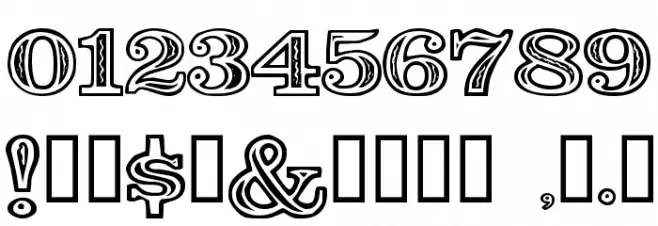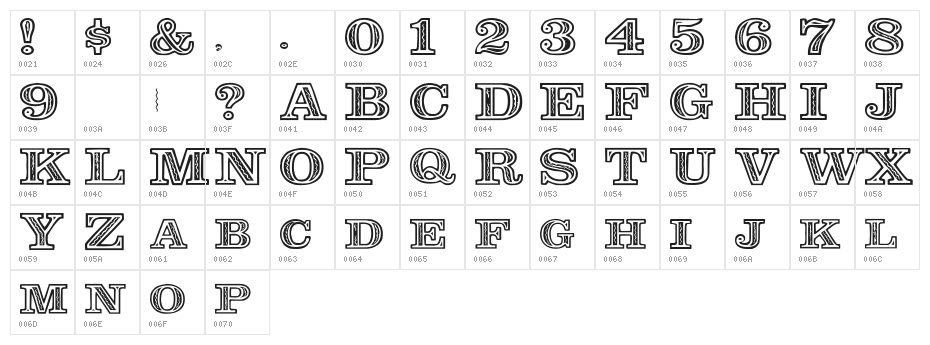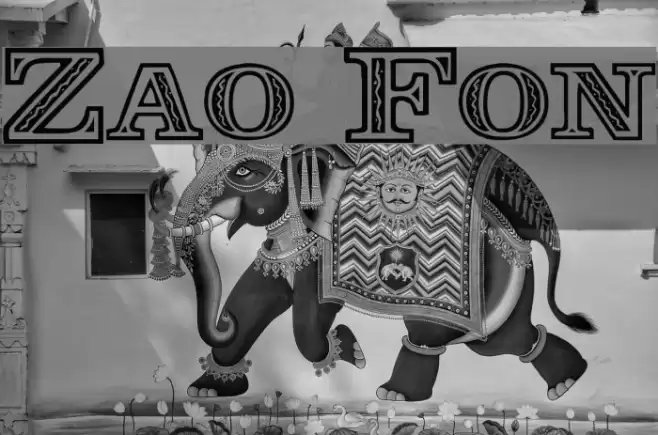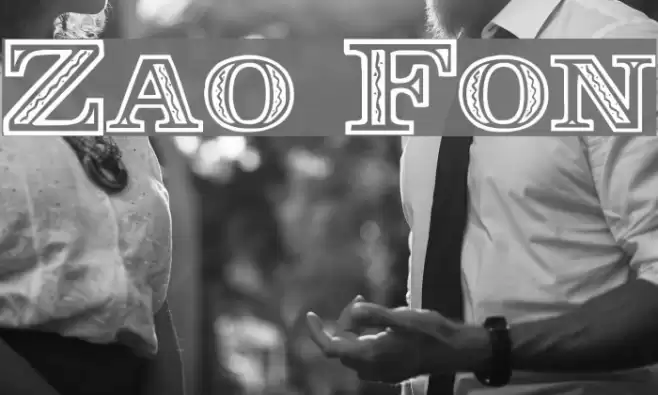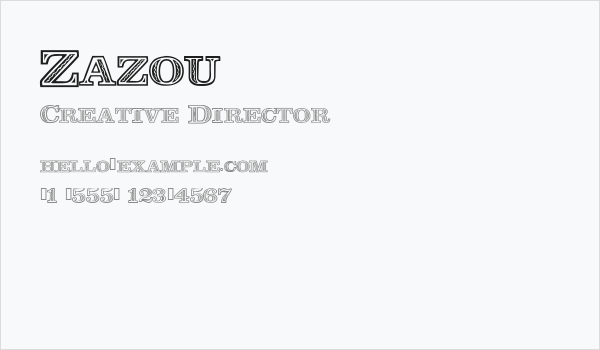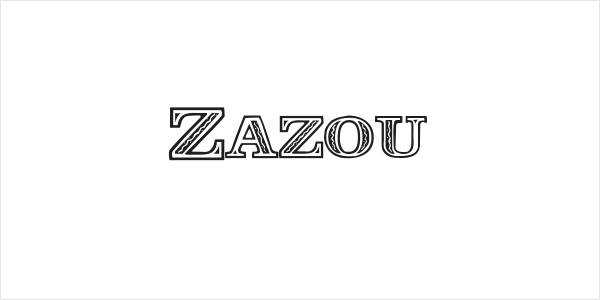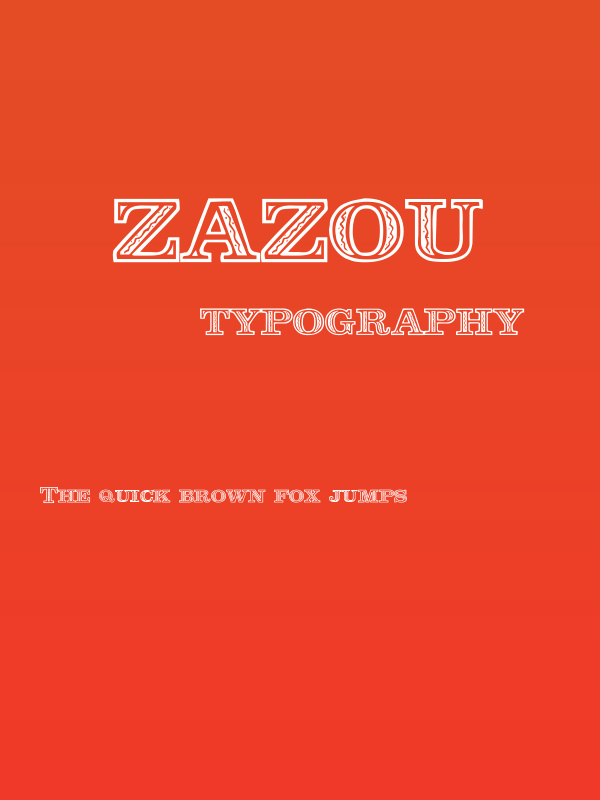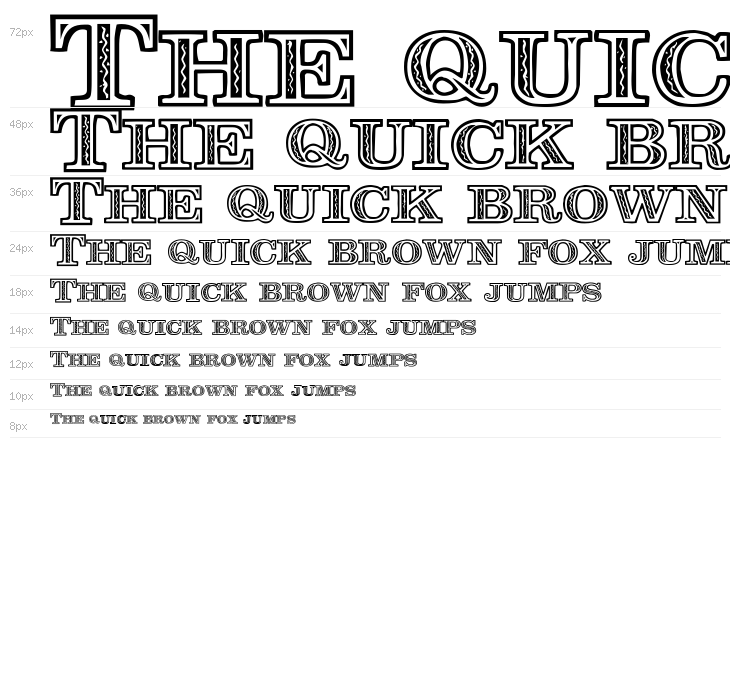
Zazou Font
Zazou Description
This font features a bold, decorative style with a unique outline effect that adds depth and dimension to each character. The uppercase letters are prominent and commanding, while the numbers and special characters maintain the same boldness and intricate detailing. The font's design is reminiscent of vintage signage or poster art, making it stand out with its artistic flair. The characters are well-spaced, ensuring readability despite the complex design. This font is ideal for projects that require a touch of elegance and boldness, such as branding, headlines, or event posters.
| Proposed Projects | Branding, event posters, vintage signage, artistic headlines. |